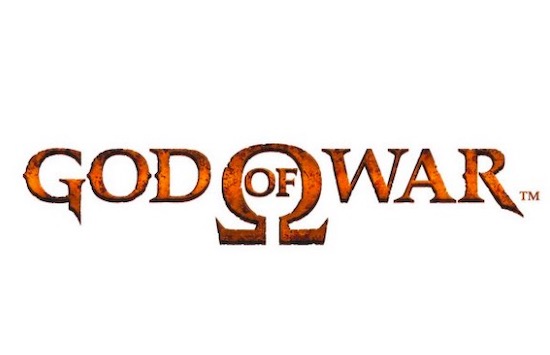
Let’s learn about God of War font. This is a logo font that is used for the poster, the title of the popular video game called God of War. This is a game that attracts a large number of gamers around the world to participate in the plot based on the stories of ancient Greek myths. It was released to players in 2005 on the PS 2 platform.
On the logo of God of War, there is an Omega symbol in the middle. This is a very interesting identifying feature of this Game. With all-caps, the text looks uniform and neat.
God of War font is suitable for use in various types of design such as labels, magazines, tattoo, posters, t-shirts, gothic lettering, headlines, newspapers, and much more.
This is a font with many ingenious and sophisticated strokes. Combined with your creative will create individual personalities for each design product in the future.
God of War Display font